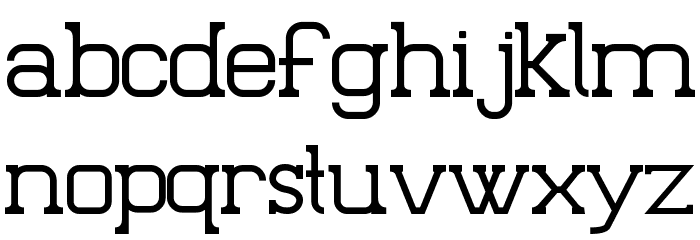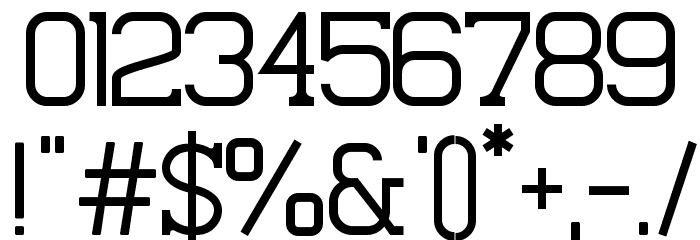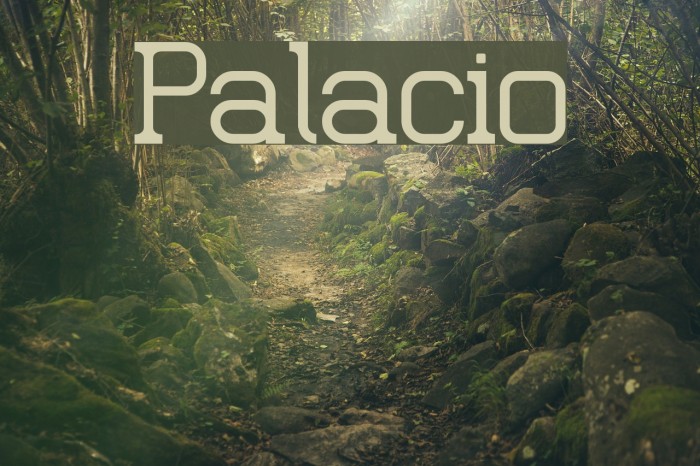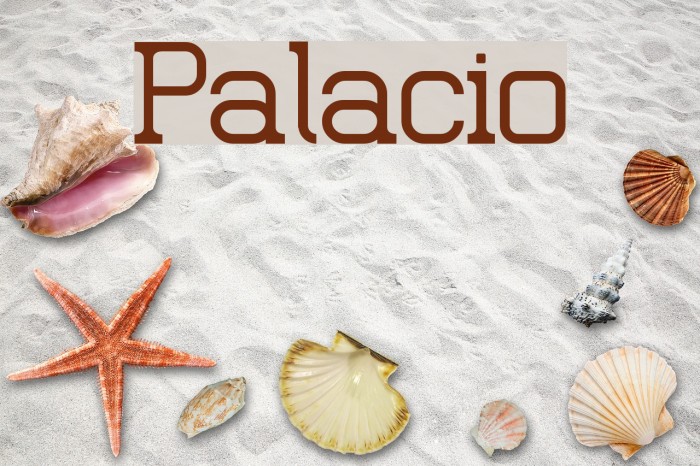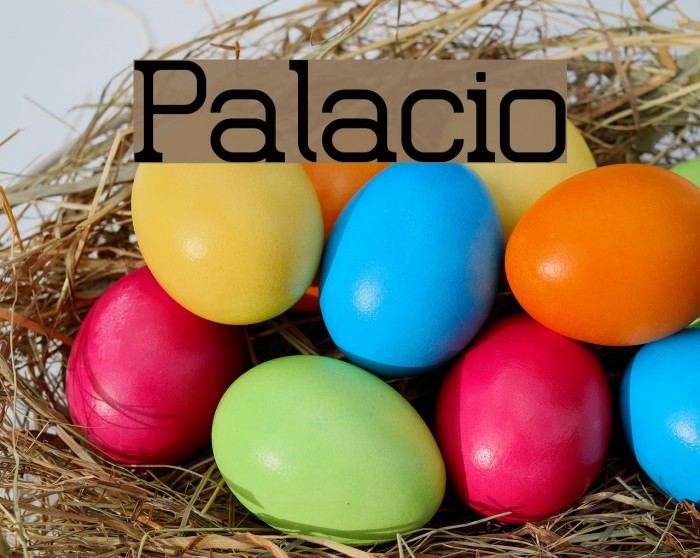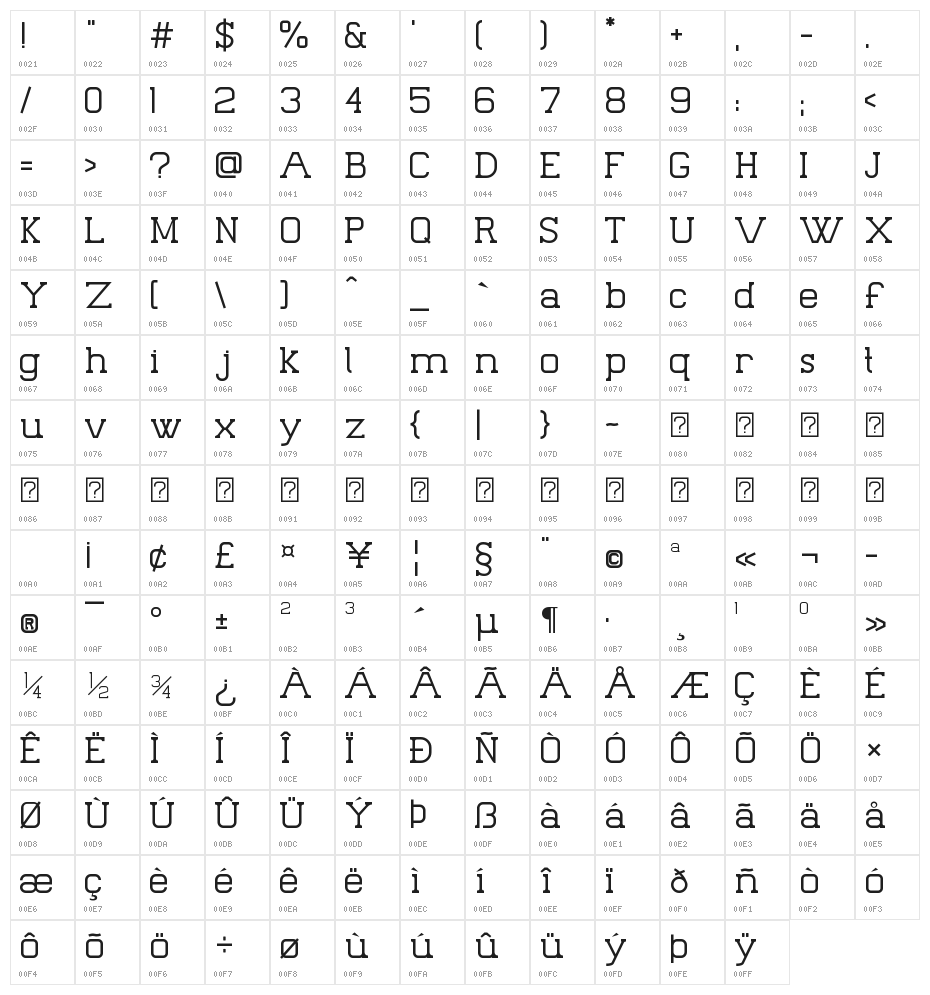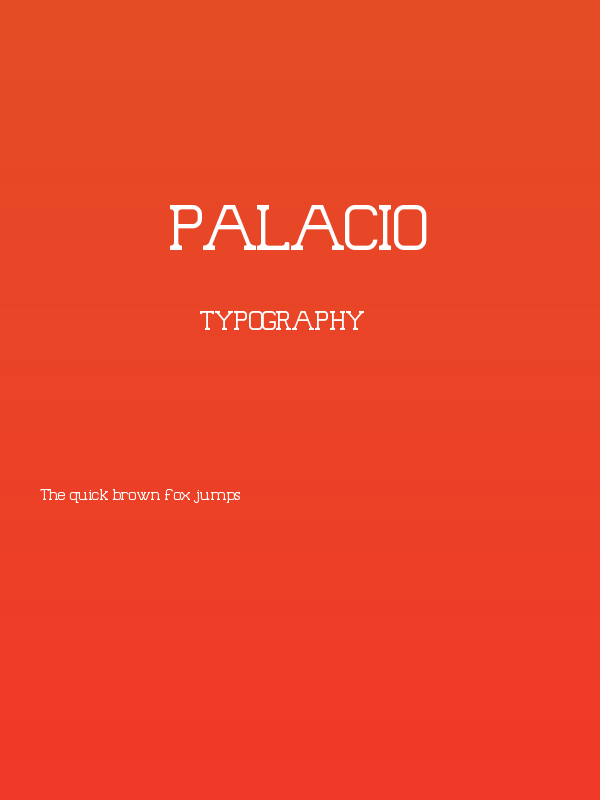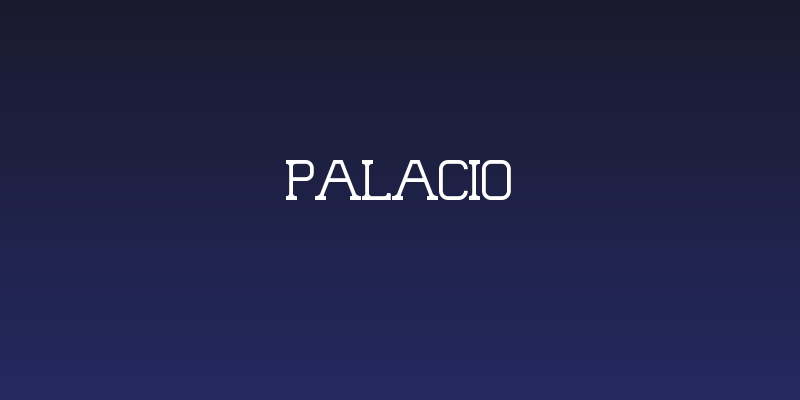
Palacio Font
This font features a modern and geometric design with a distinct slab serif style. The characters are well-defined with a consistent stroke width, giving it a clean and structured appearance. The uppercase letters are bold and commanding, while the lowercase letters maintain a uniformity that complements the overall design. The numerals are clear and easy to read, making them suitable for various applications. Special characters are included, adding versatility to the font's use. The font's design is both functional and aesthetically pleasing, making it ideal for a wide range of creative projects.
A modern, geometric slab serif font with consistent stroke width and clear readability.
- Proposed Projects: Ideal for branding, editorial design, posters, and digital interfaces.
- Category: Slab Serif
- Use Case: Headlines, Logos, Editorial Design